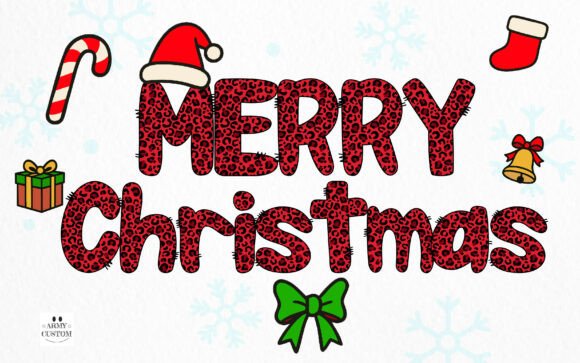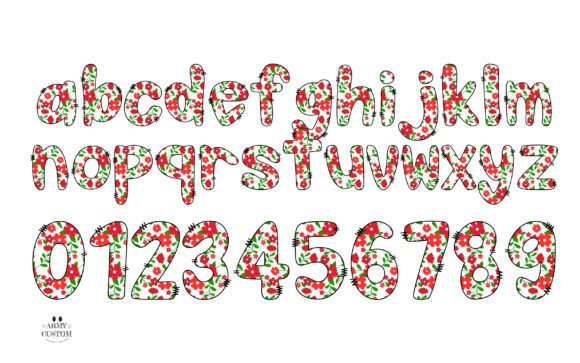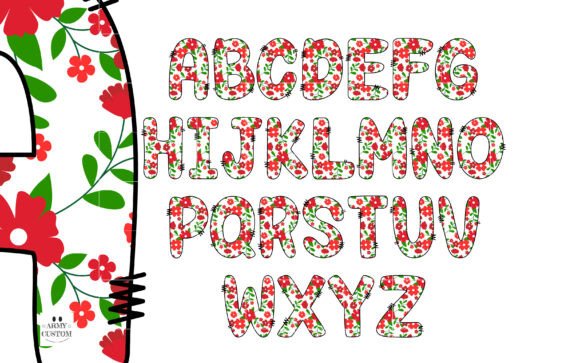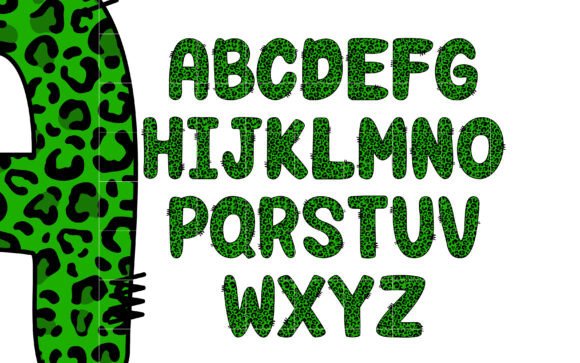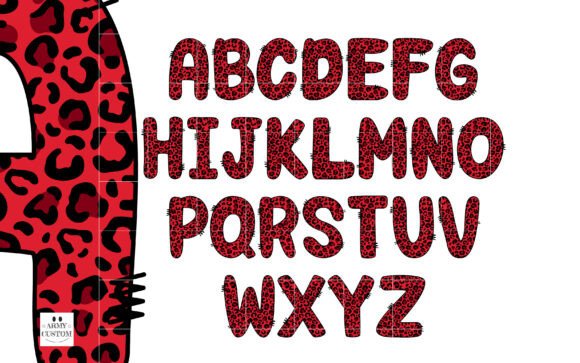
Introducing the Christmas Bundle Font: A Whimsical Addition to Your Holiday Design Toolkit
Are you looking for a way to add a dash of holiday cheer to your design projects? Look no further than the Christmas Bundle Font, a playful and vibrant 5-styled color font that’s sure to bring a smile to your face. Imbued with a sense of whimsy, this charming font is inspired by the adorable antics of Santa’s helpers, making it the perfect choice for creating joyful holiday decorations and designs.
A Jovial Style for Your Holiday Designs
The Christmas Bundle Font is designed to bring a sense of merriment and fun to your holiday designs. Its jovial style makes it an ideal choice for creating vibrant holiday decorations, adding a playful touch to your social media posts, or simply adding a dash of holiday cheer to your website or blog. With this font, every letter spelled out becomes a joyous celebration, perfect for getting you in the holiday spirit.
Compatibility and Features
Pattern Descriptions: A Fun and Festive Collection
The Christmas Bundle Font comes with a range of fun and festive patterns, including:
- Red Buffalo Plaid: A classic red-and-black checkered flannel pattern, evoking cozy winter vibes and traditional holiday attire. Perfect for creating warm and inviting holiday designs, this pattern is sure to become a favorite.
- Green Leopard Print: A bold twist on the usual animal print, this fun and playful pattern adds a dash of whimsy to any design. With its bright green color and playful leopard spots, this pattern is sure to add a touch of holiday cheer to your designs.
Tips and Tricks for Using the Christmas Bundle Font
The Christmas Bundle Font is a fun and festive addition to any design toolkit. With its jovial style, range of patterns, and compatibility with a range of software and cutting machines, this font is perfect for designers and crafters who love to create holiday designs. Whether you’re looking to create vibrant holiday decorations, add a dash of merriment to your social media posts, or simply get into the holiday spirit, the Christmas Bundle Font is the perfect choice.